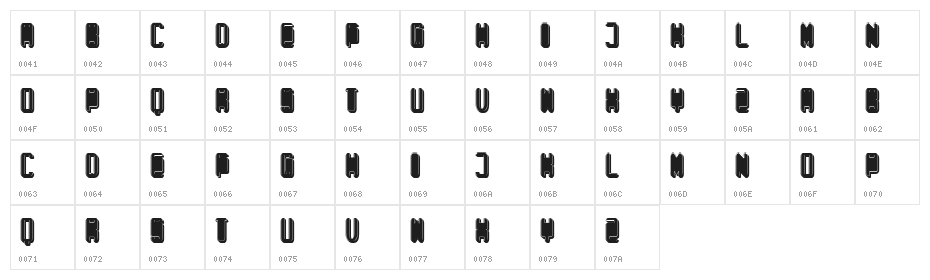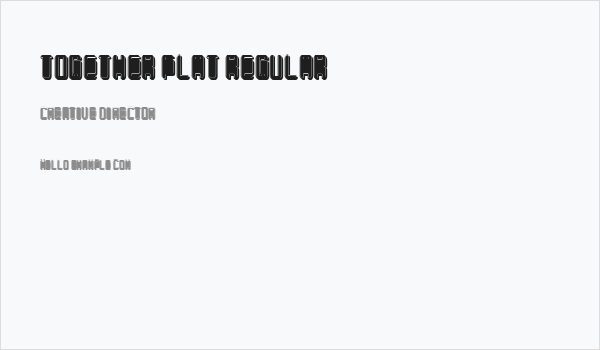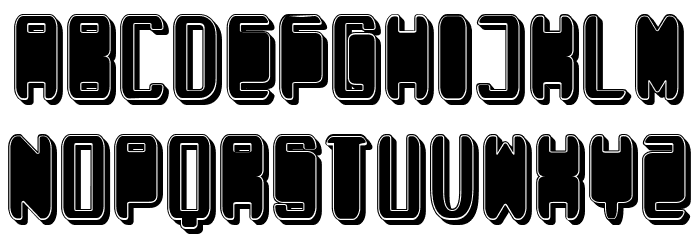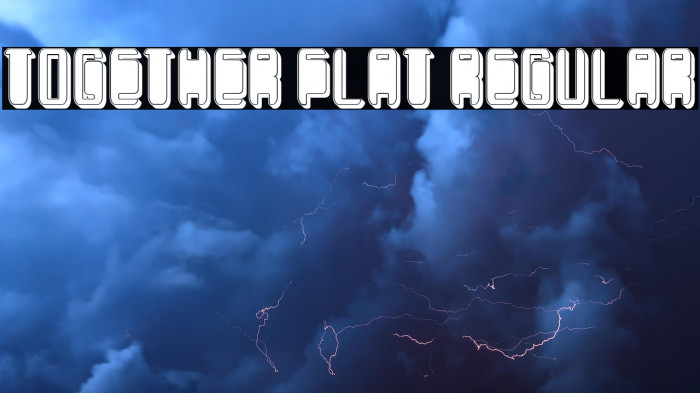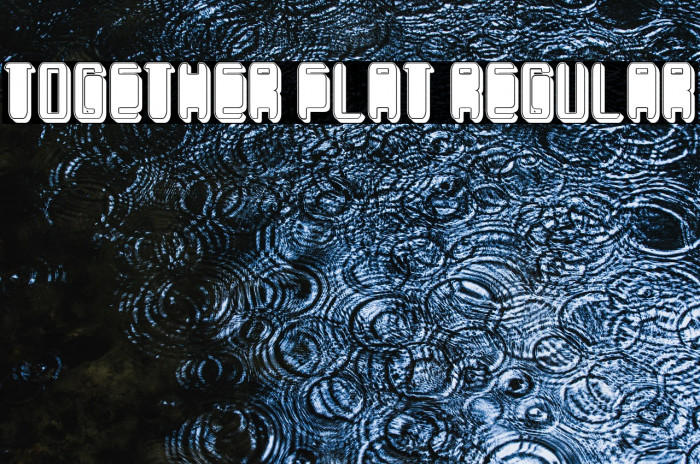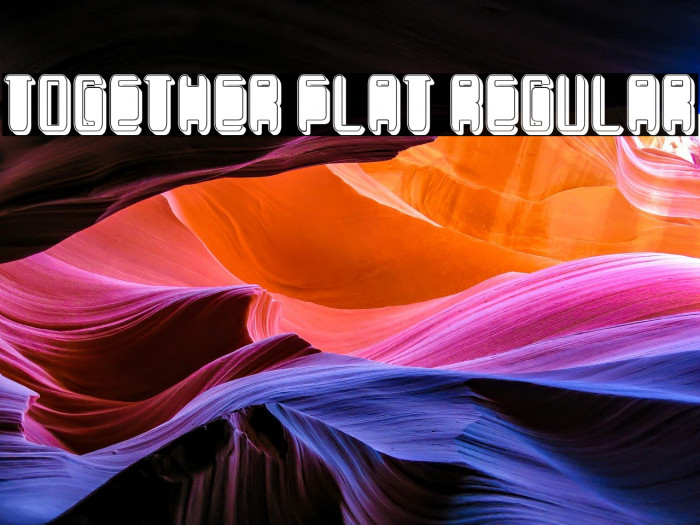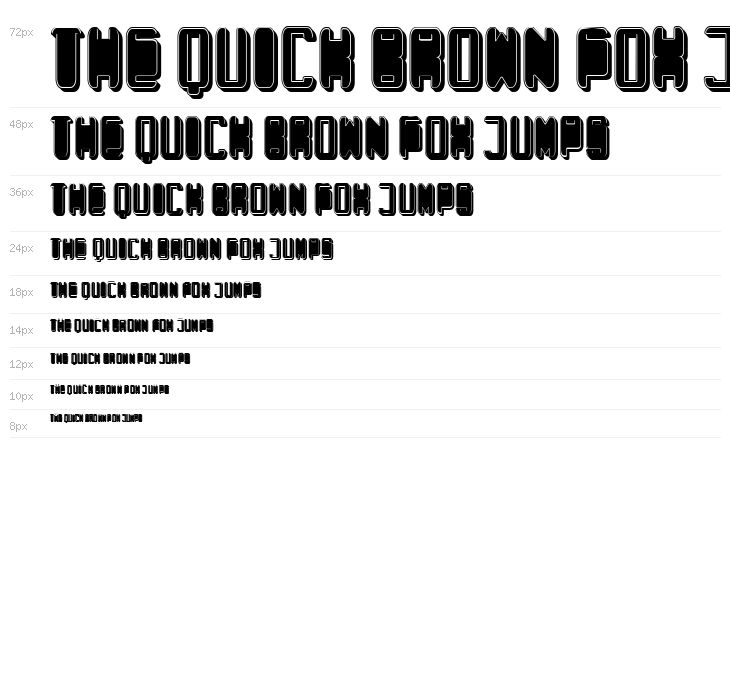
Together Flat Regular Font
Together Flat Regular Description
This font features a bold, geometric design with a strong emphasis on uniformity and structure. Each character is crafted with a consistent width and height, creating a cohesive and balanced appearance. The letters are enclosed in a thick outline, adding a sense of depth and dimension. The style is reminiscent of digital or futuristic themes, making it ideal for modern and tech-oriented projects. The uppercase letters are particularly striking, with their blocky and robust form, while the lowercase letters maintain the same structural integrity. The numbers and special characters follow the same design principles, ensuring a harmonious look across all elements.
| Proposed Projects | Ideal for tech branding, digital interfaces, video game titles, and modern posters. |